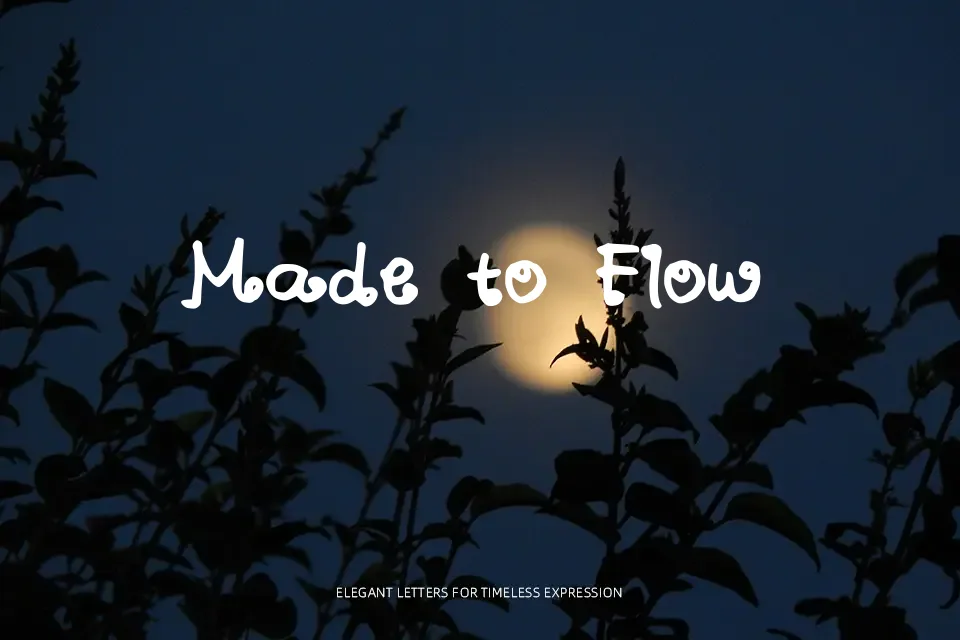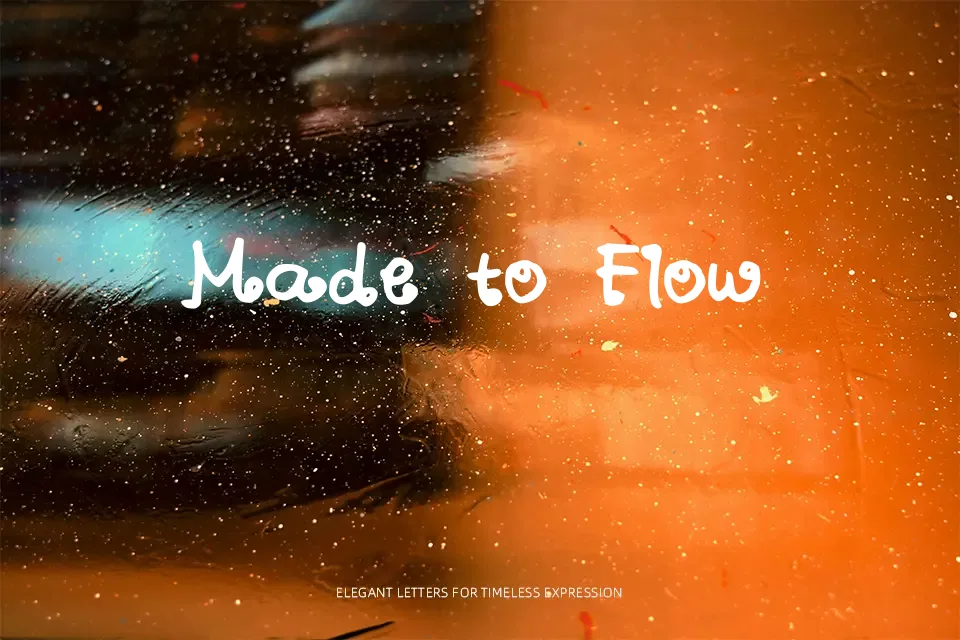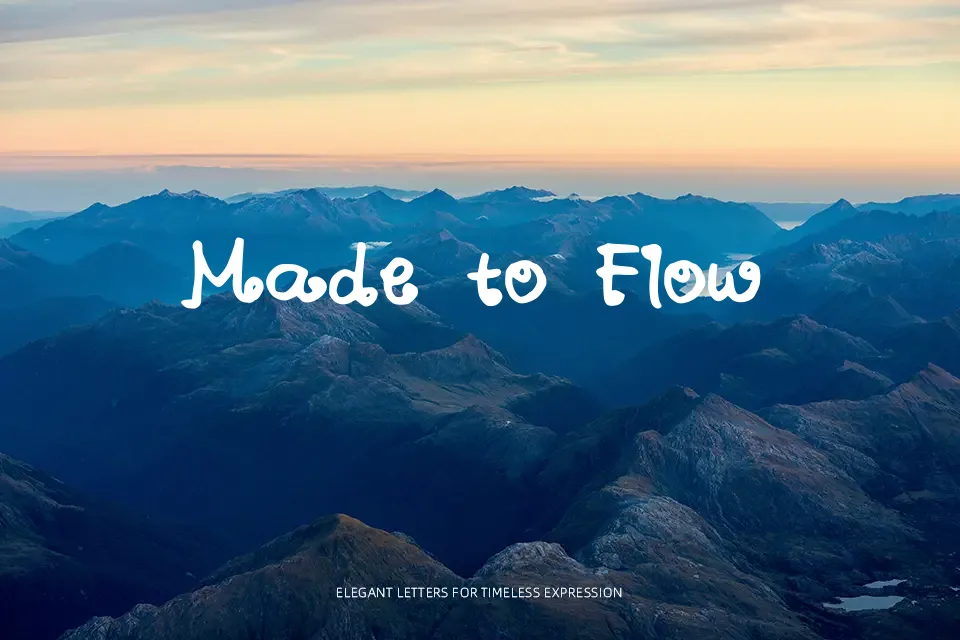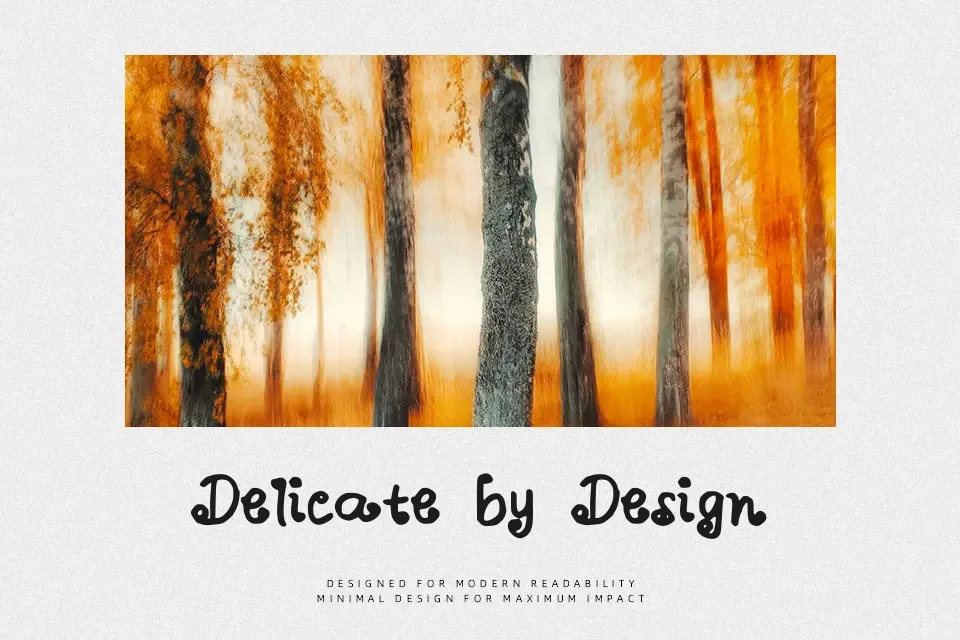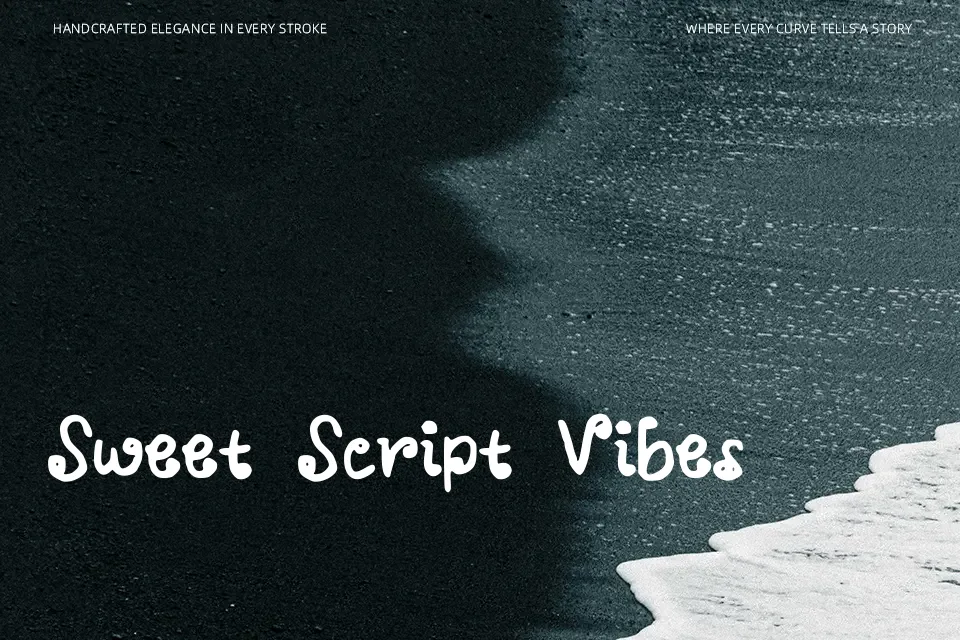
A Swirl Velvet Font
Fluid swirls and generous loops define this font’s personality — the letterforms lean into decorative excess rather than restraint. Stroke contrast is moderate, with rounded terminals that soften the overall weight, giving it a warm, almost tactile quality. It suits wedding invitation headers, beauty brand logos, or artisan packaging where a handcrafted impression matters. That said, the ornate styling becomes a liability at small sizes; fine swirl details collapse below roughly 18pt, making it unsuitable for captions or body copy. It works best when given room to breathe — large, isolated headings where each letter can register clearly. Pair it with a clean sans serif for body text to avoid visual overload.
– Wedding invitation headers and cover titles
– Boutique or beauty brand logo treatments
– Social media quote graphics and event posters
– Artisan product packaging labels
– Small-size text or fine print where swirl detail collapses
– Long-form body copy or multi-line paragraphs
– Corporate or technical documents requiring neutral tone
– UI labels or navigation elements
Perfect for branding, invitation, and packaging, with a artistic and calligraphy style.